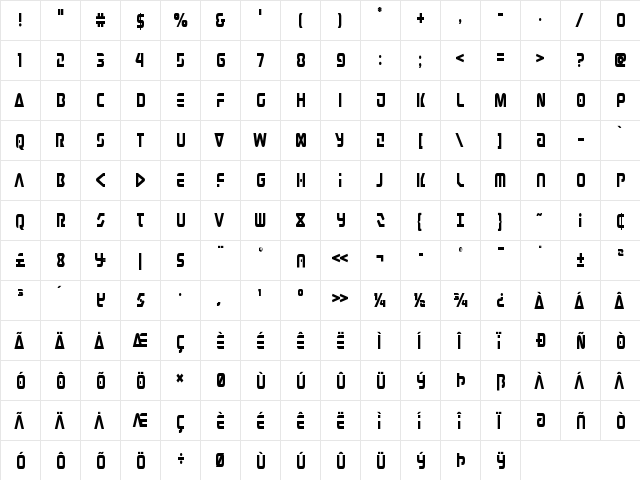
Judge Condensed Condensed
Design Context for Judge Condensed Typeface
Judge Condensed offers clean, dependable letterforms without strong stylistic allegiance, making it a practical choice for designers who need flexibility. Its narrow stance lets it pack a punch even in space-constrained designs.
Pro Tip: Pair Judge Condensed with a font of contrasting weight or personality to build a more expressive typographic hierarchy.